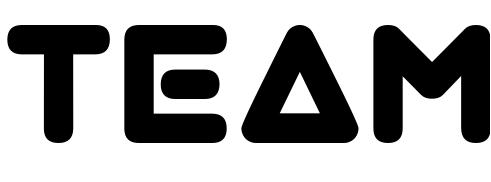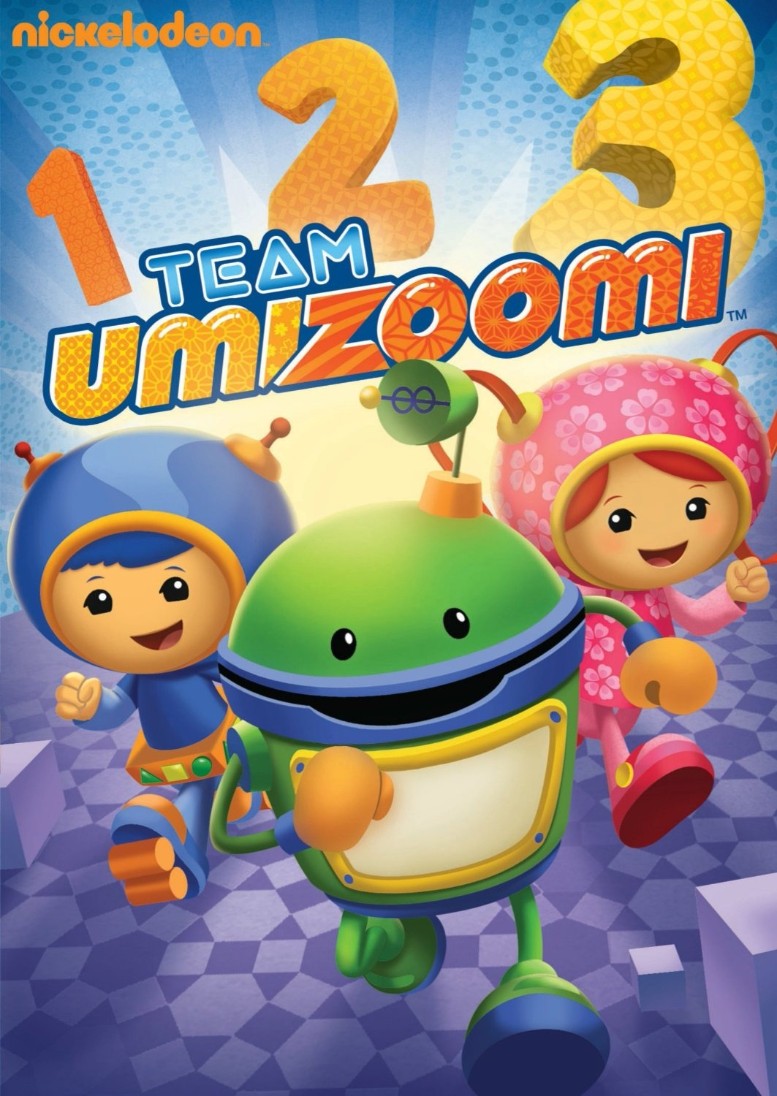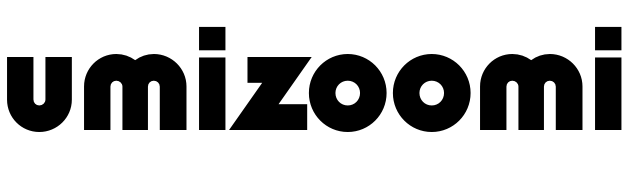
Team Umizoomi Font
AdventureTeam Umizoomi is an educational children's television show that follows the adventures of a team of superheroes with special math powers as they solve problems and help their community.
In the Team Umizoomi series logo, two fonts were used: Virgo 01 by Vic Fieger for the "Team" part, and Eton Ultra Bold by OPTIFont for the "Umizoomi" part. You can download the fonts for Free in the Fonts Used Section.